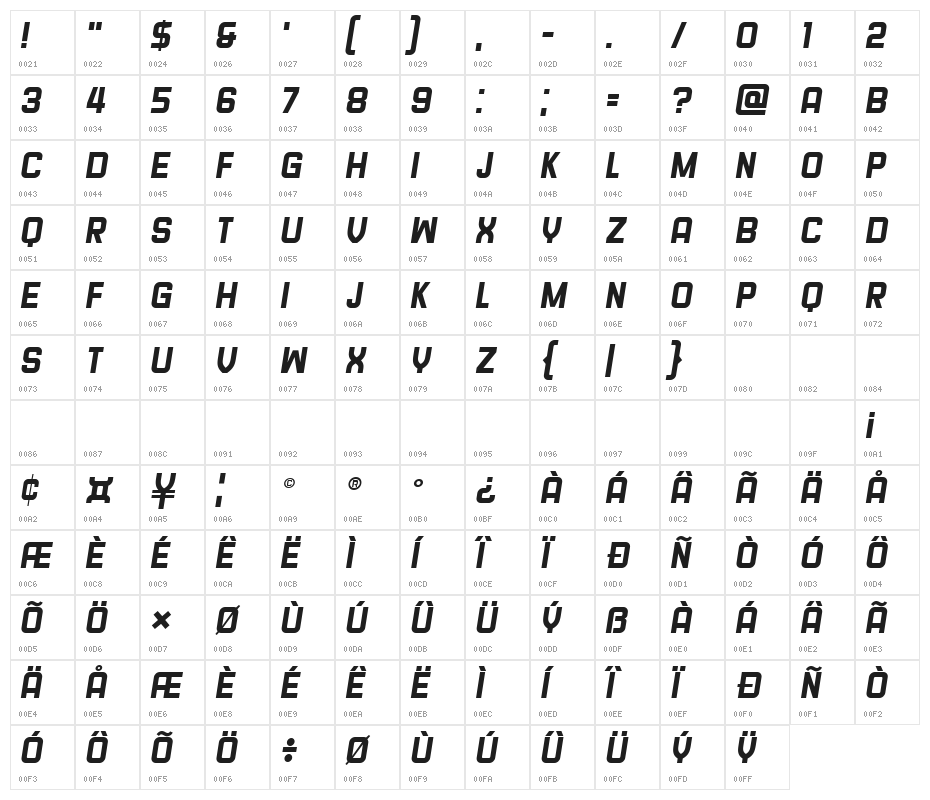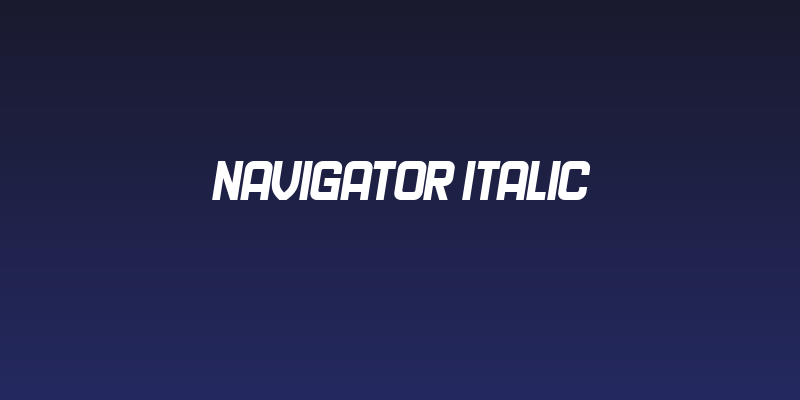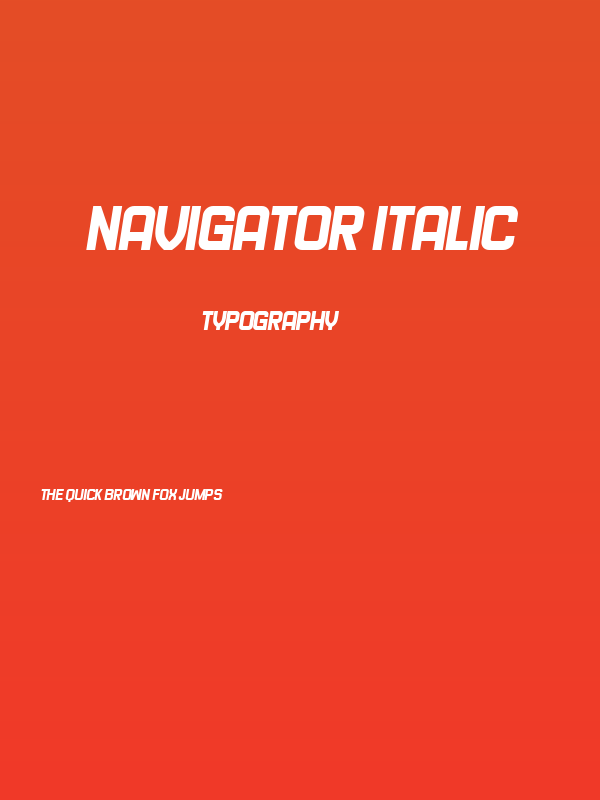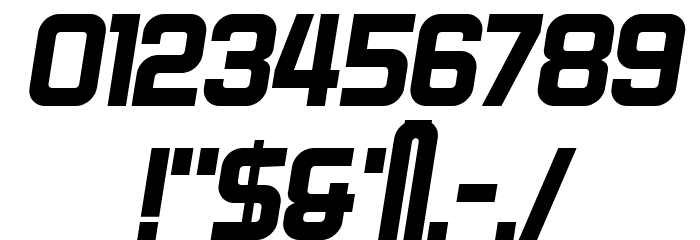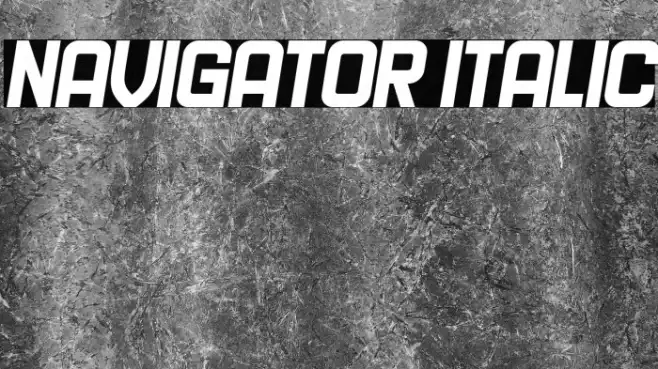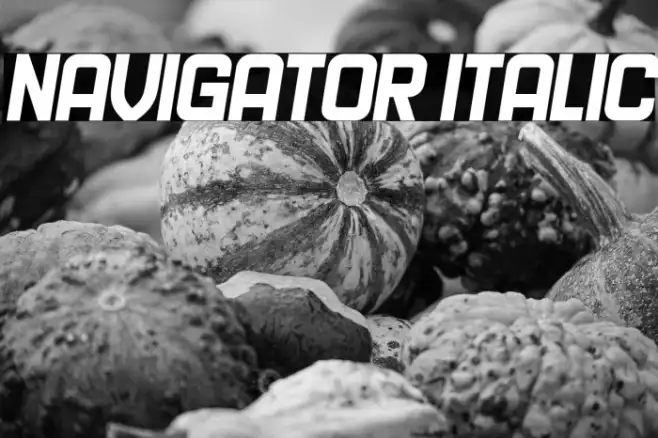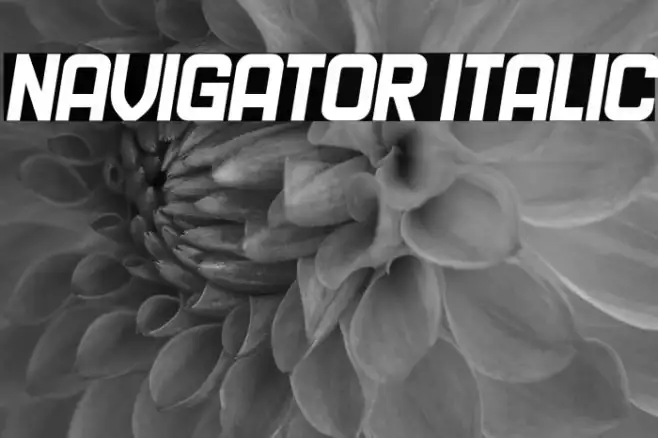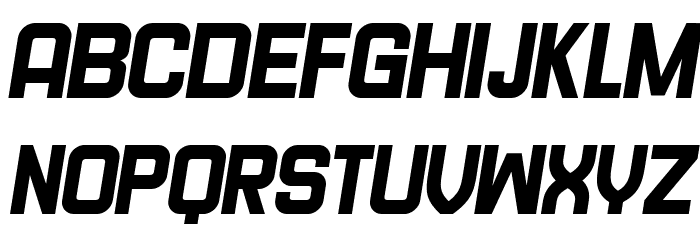
Navigator Italic Font
Navigator Italic Description
This font features a bold and dynamic style with a strong italic slant, giving it a sense of motion and energy. The characters are wide and robust, with a modern and sporty feel. The uppercase letters are particularly striking, with sharp angles and a consistent stroke width that enhances readability. The numbers and special characters maintain the same boldness, ensuring uniformity across all text elements. This font is ideal for projects that require a contemporary and impactful look.